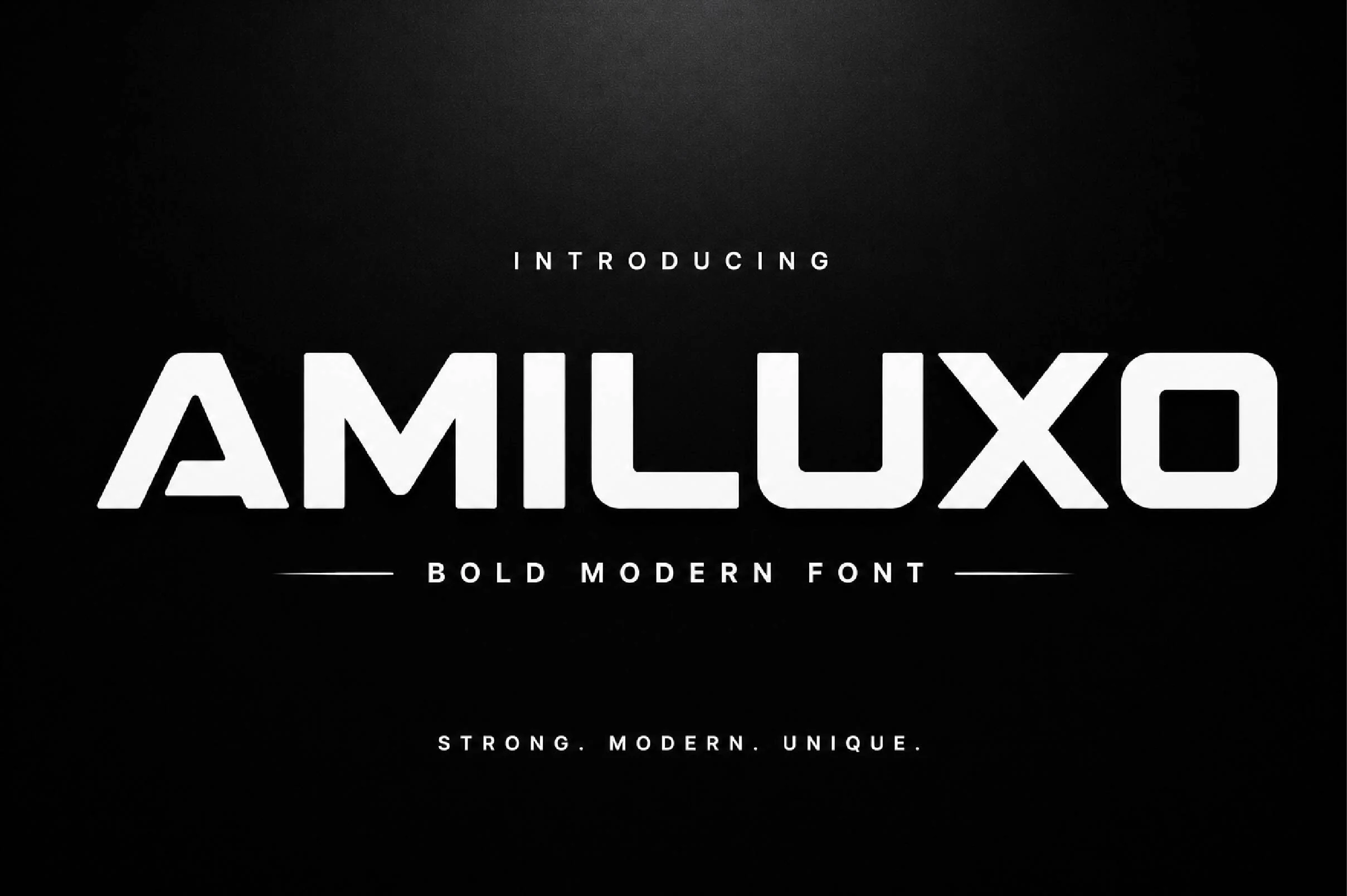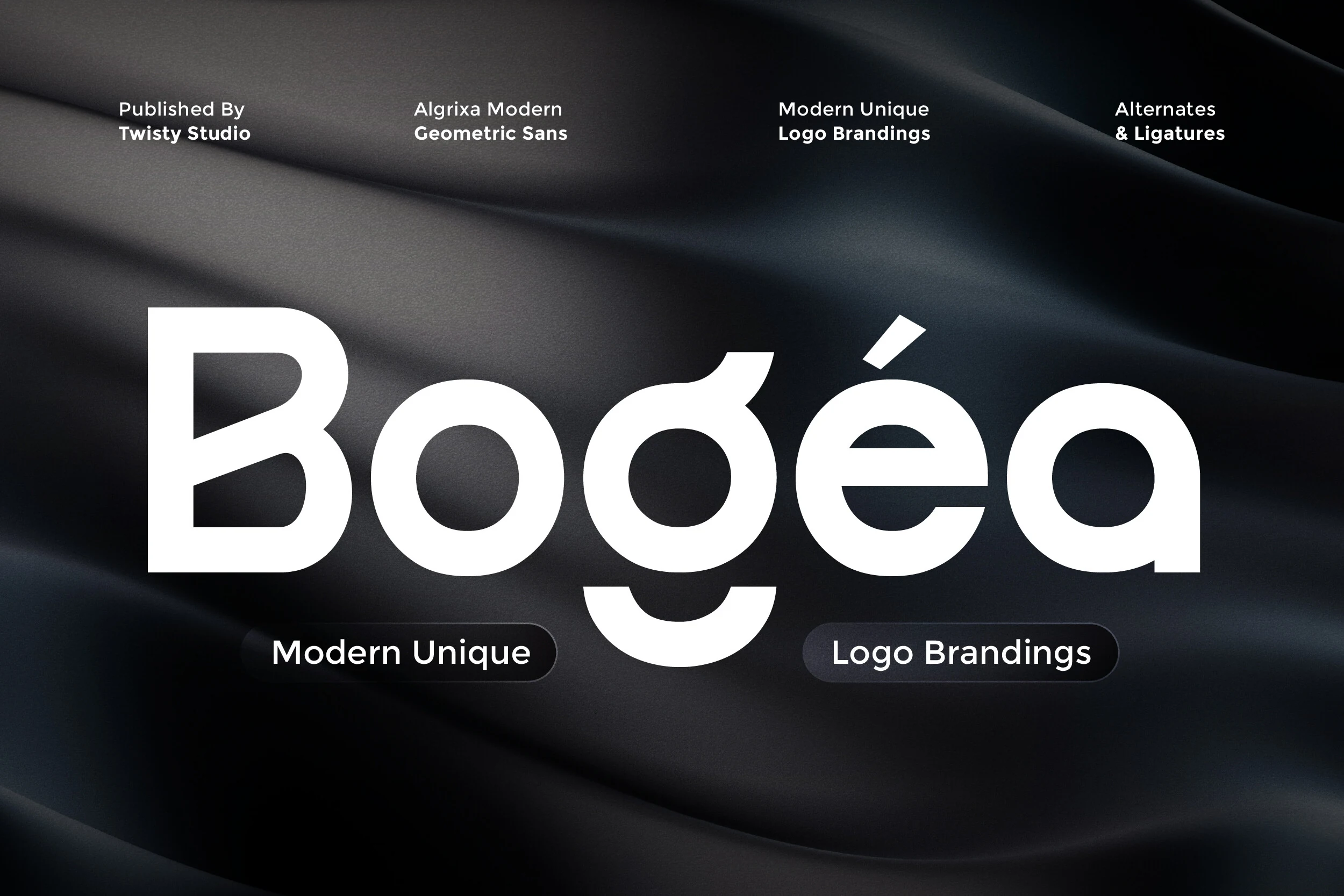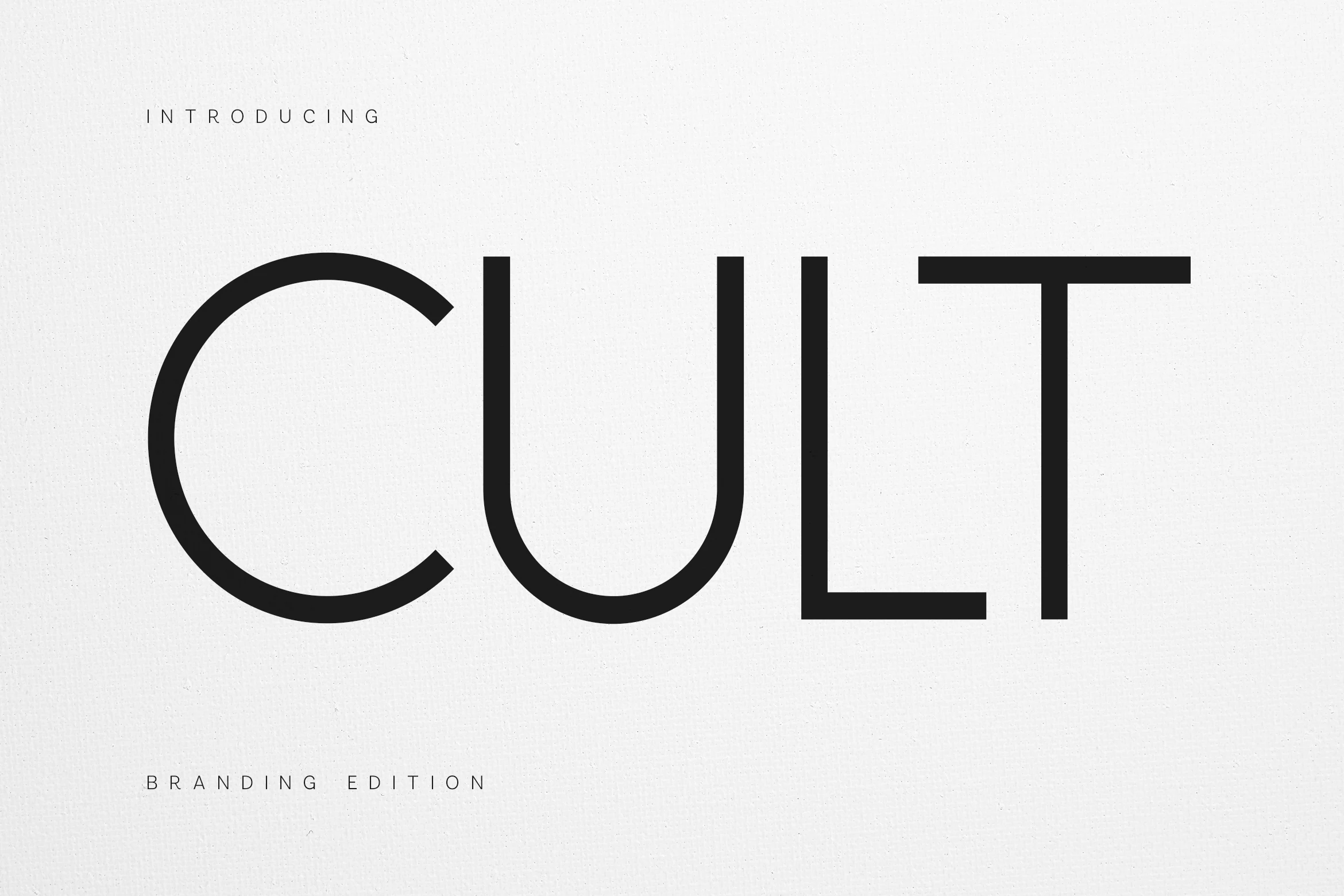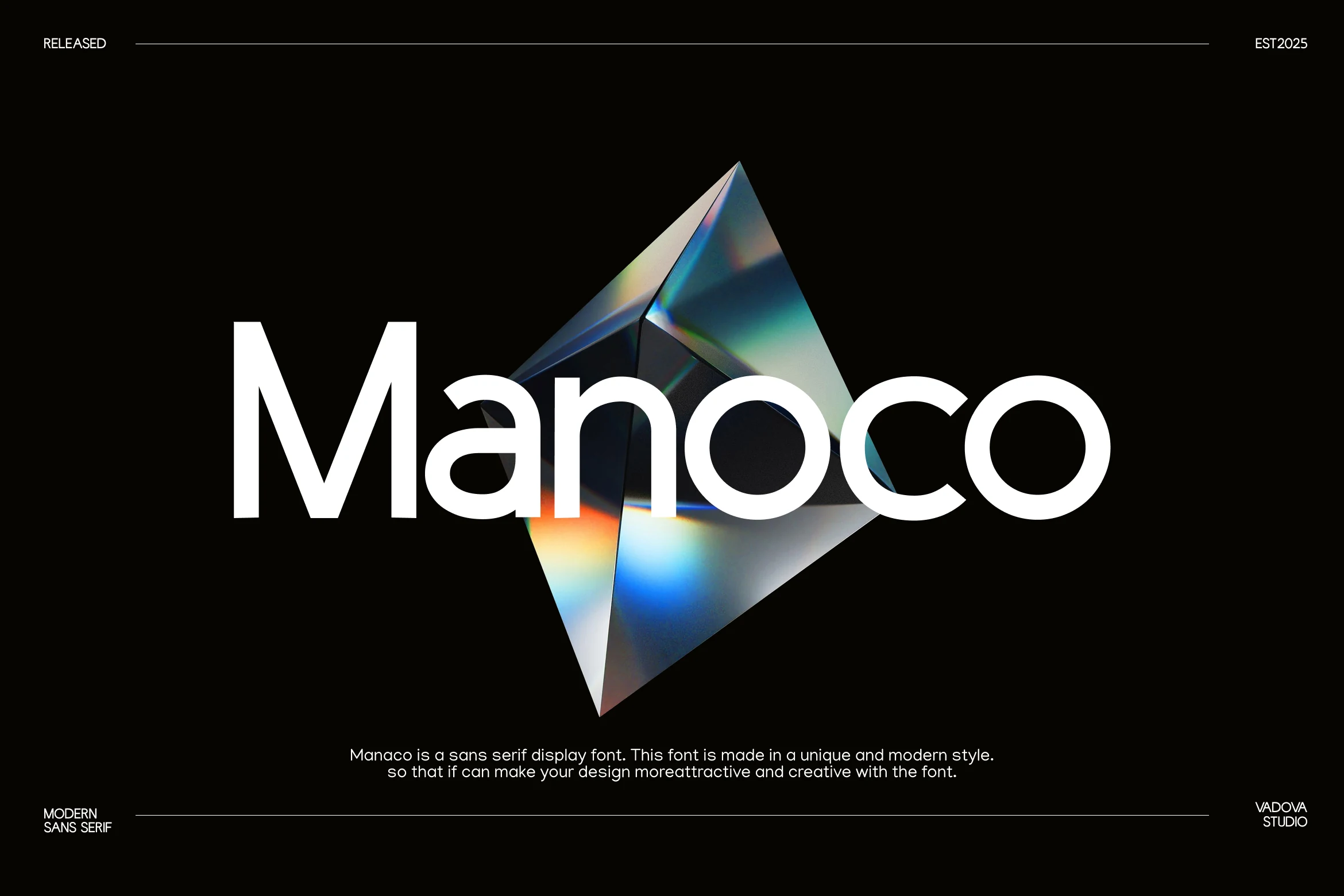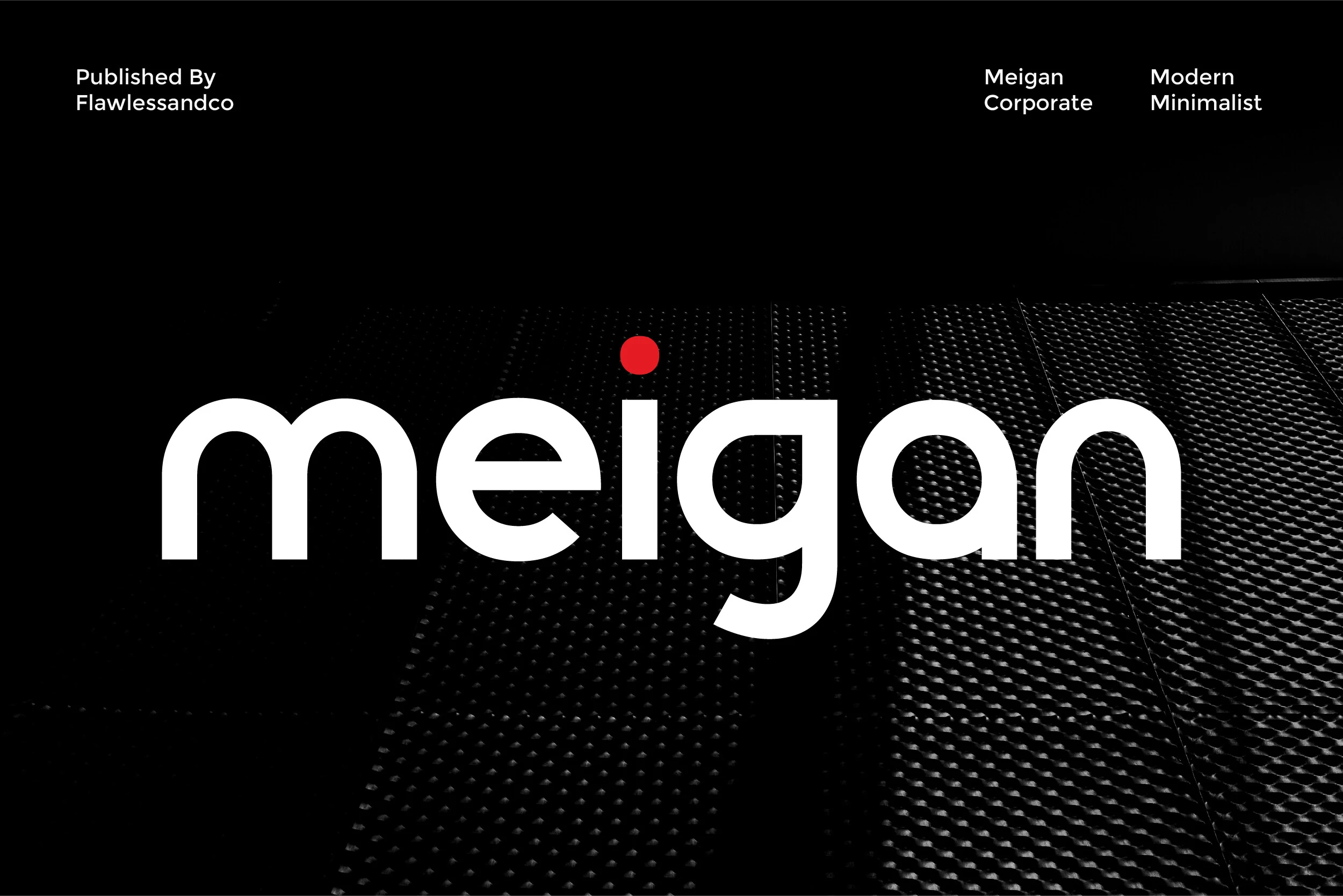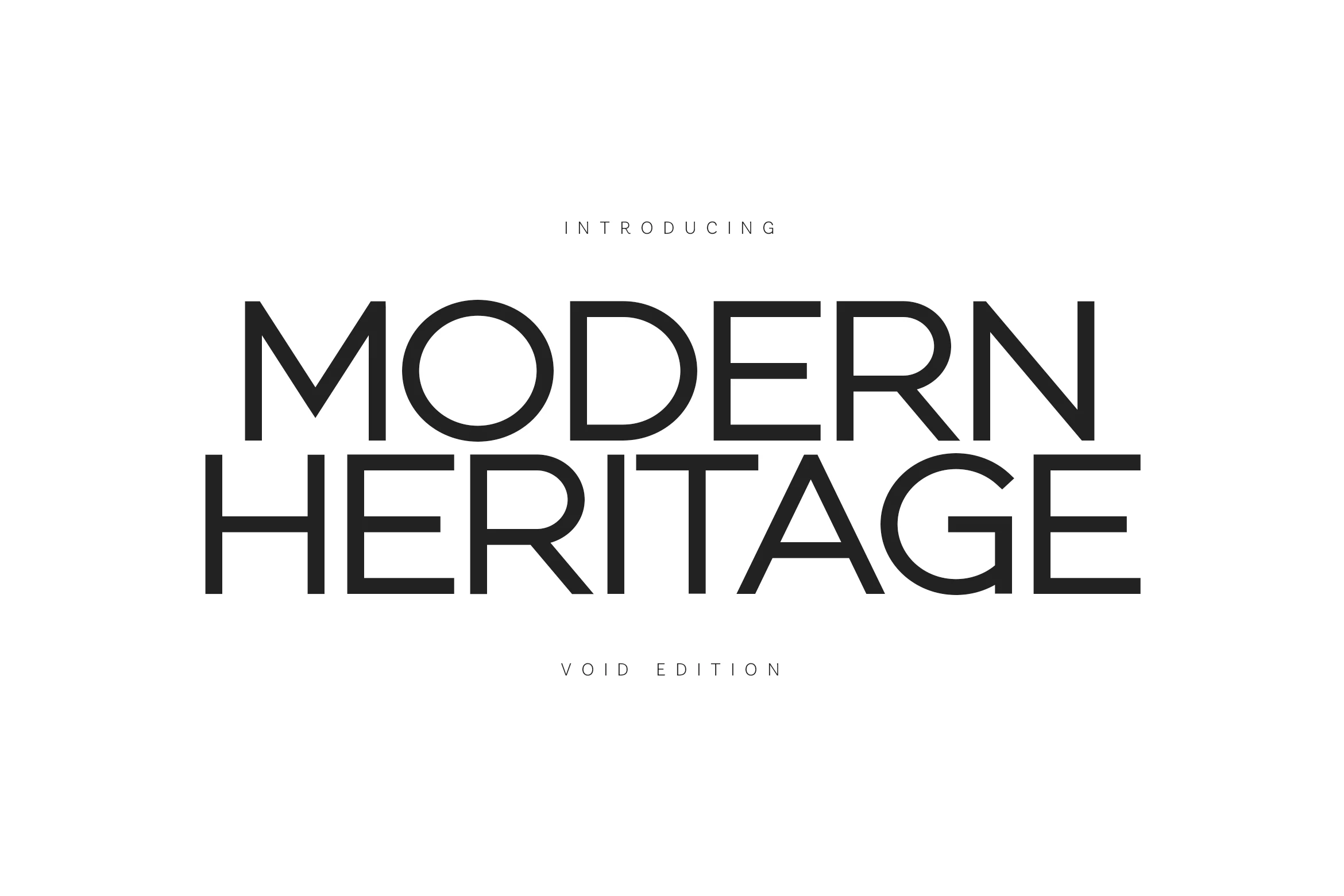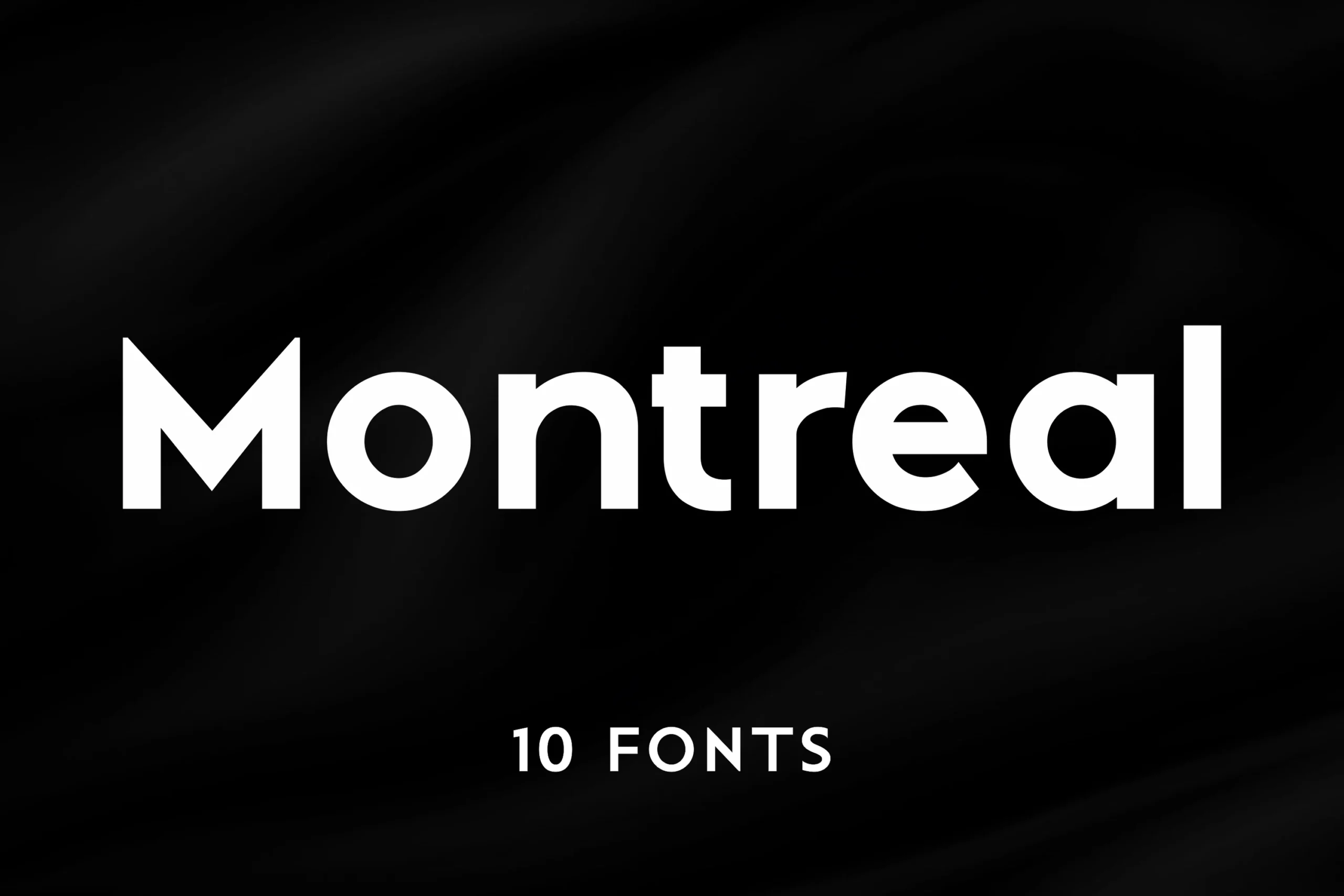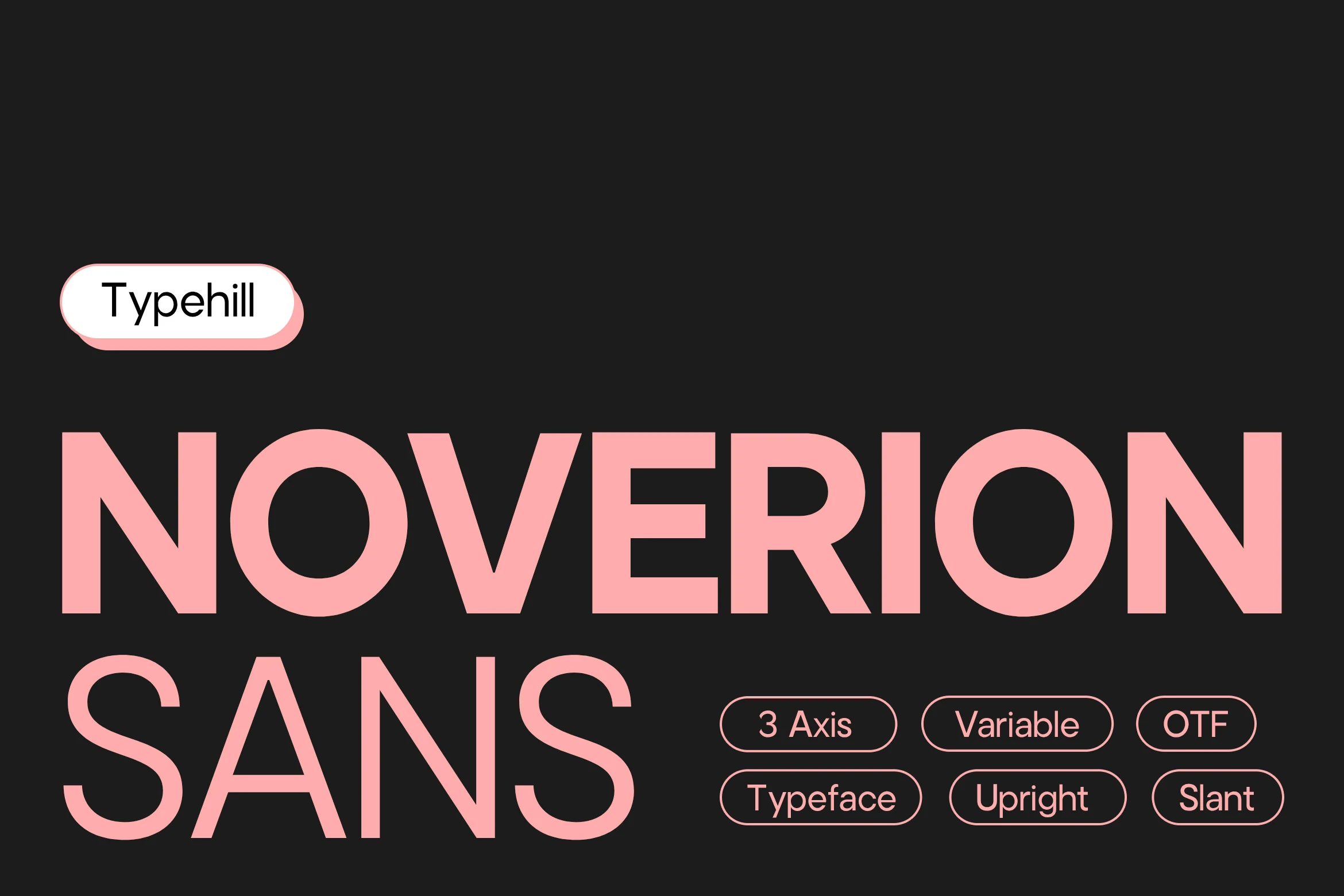
38 Best Minimalist Fonts for Clean, Modern Design in 2026
Browse 38 minimalist fonts for logos, branding, posters, websites, and editorial layouts in 2026. This roundup includes thin geometric sans serifs, bold condensed display faces, refined serifs, and futuristic styles for clean modern design.
Mango Dream Font
Mango Dream Font uses a thin monoline sans serif structure with rounded bowls, soft terminals, and open spacing that keeps the lowercase forms calm and readable. Its circular counters and restrained stroke contrast give it the clean, contemporary tone often needed in Minimalist Fonts.
The light weight works best when contrast is controlled, so pair it with generous margins, quiet backgrounds, and a stronger supporting typeface for hierarchy. Multilingual support makes it more practical for brand systems, websites, and campaign layouts that need consistent lettering across different languages.
Vancouver Font
Vancouver Font has a tall condensed sans serif build with solid strokes, tight rhythm, and crisp vertical edges that give short words immediate impact. The all-caps preview shows how confidently it handles scale, making it a strong option within Minimalist Fonts when a layout needs presence without decorative detail.
It is especially effective in posters, headlines, and logo work where the narrow proportions let you fit more characters into a compact width. Use it for short lines and bold hierarchy, then pair it with a quieter text face so the heavy weight stays sharp instead of crowding the composition.
Poppins Font
Poppins Font has a bold rounded sans serif style with thick monoline strokes, soft corners, and wide letter shapes that keep the wordmark clean without feeling rigid. Its geometric bowls and simple uppercase rhythm fit well within Minimalist Fonts when a design needs friendly weight instead of sharp corporate precision.
The heavy structure is strongest in short names, headlines, and logo marks where the rounded terminals can stay clear at display size. Keep spacing moderately open and use strong contrast around it, because the broad strokes can feel crowded when squeezed into narrow layouts or long phrases.
Meigan Font
Meigan Font has a clean geometric sans serif structure with rounded curves, even stroke weight, and steady spacing that make it feel polished without becoming sterile. The open counters and broad lowercase forms give it the calm precision often associated with Minimalist Fonts.
Its balanced proportions support strong readability across print and screen, which is especially useful for corporate identities, website headers, and business-facing branding. Give it generous space and a clear hierarchy, so the smooth shapes and modern tone carry the message without visual clutter.
Neverdies Font
Neverdies Font uses a compressed sport sans serif shape with heavy vertical strokes, sharp internal cuts, and squared terminals that make each letter feel rigid and forceful. It sits on the aggressive end of Minimalist Fonts, relying on block structure and clean geometry rather than ornament.
The narrow width helps large headlines and sports logos carry more text without losing impact, but it needs firm contrast and enough line spacing to avoid visual pressure. OTF and TTF formats make it easier to keep the same bold display treatment across common design platforms.
Athabasca Font
Athabasca Font stands out with angular cuts, condensed proportions, and a slightly industrial sans serif rhythm that feels crisp rather than neutral. The chamfered corners give the letters a technical edge, and that sharper silhouette makes it a strong fit for Minimalist Fonts that still need character at display size.
The family range is especially useful in real layouts: 3 widths, 6 weights, and italics help you build hierarchy without switching typefaces. Use the narrower styles for headlines or posters, then balance them with wider or lighter settings so the angular forms stay clear instead of cramped.
Roman Glamour Font
Roman Glamour Font presents a refined display style with high-contrast strokes, slim vertical stress, and graceful curves that give the lettering a polished editorial character. The open spacing and restrained details keep it aligned with Minimalist Fonts, but the delicate serifs add more sophistication than a plain geometric face.
The tall forms and even spacing keep titles readable, while the texture adds interest to logos, posters, and editorial headers without overpowering the composition. Use it at display size and let the surrounding typography stay simpler and smoother so the grain remains visible instead of turning muddy.